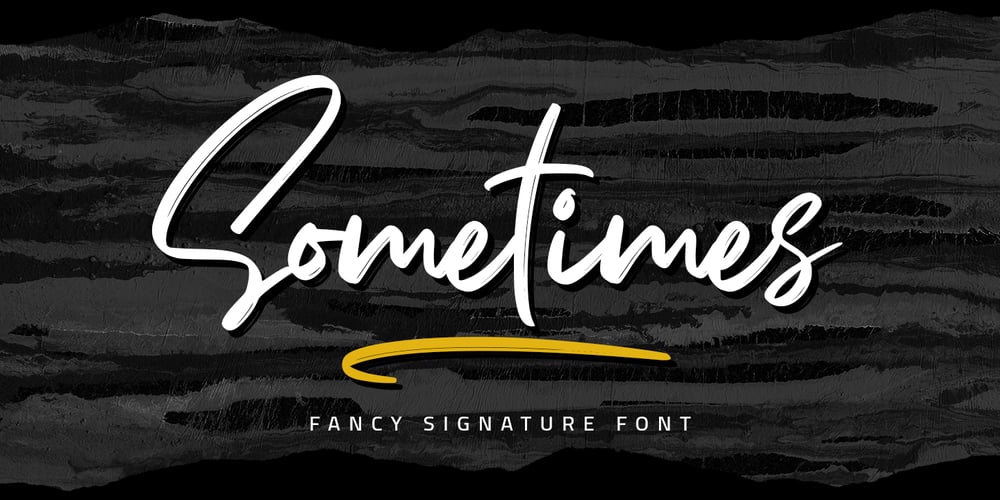
Sometimes
Sometimes font
Sometimes Font Family was designed by Abdul Malik Wisnu and published by Almarkha Type. Sometimes contains 3 styles and family package options. Sometimes is a fancy signature font with 2 styles: regular and slant. It is inspired by luxury and branded items. It is perfect for logos, branding, photography, invitations, watermarks, advertisements, product designs, stationery, wedding designs, labels, product packaging, special events or anything that need hand-writting taste. Thanks for checking it out, and feel free to drop me a message if you had any queries! Oh, and come and say hello over at email : almarkhatype@gmail.com ~ Almarkha Type